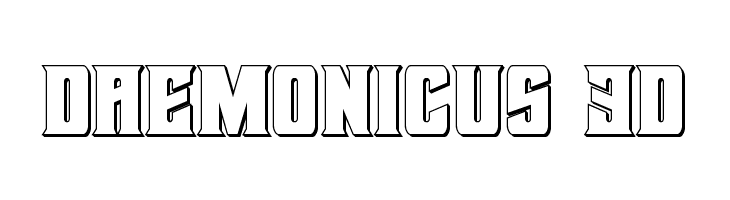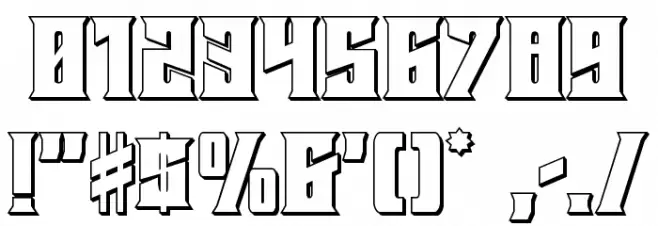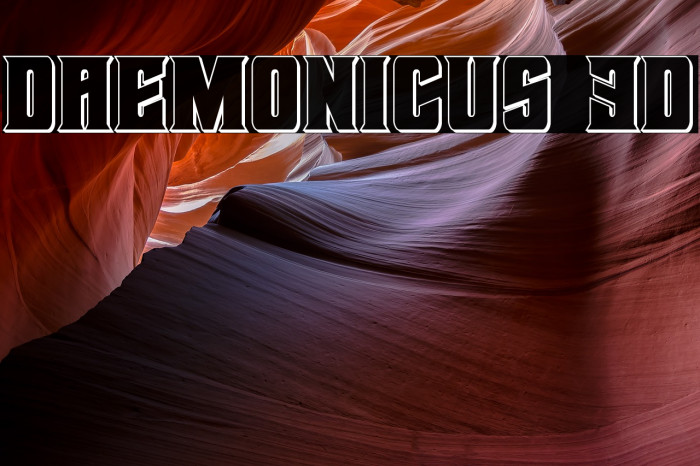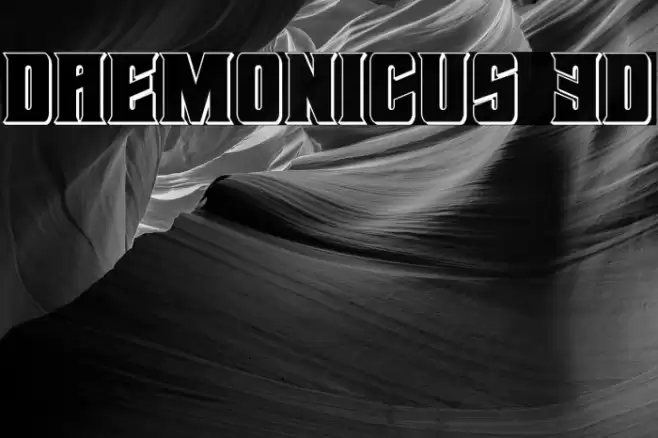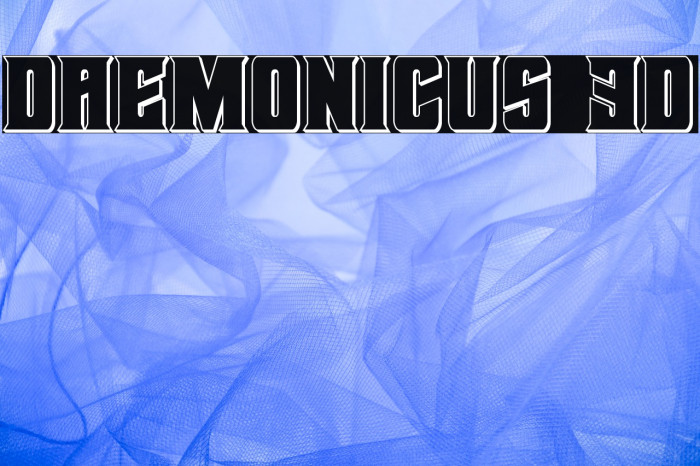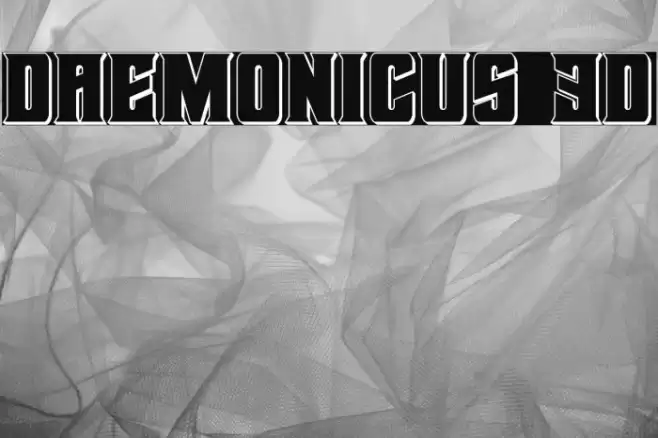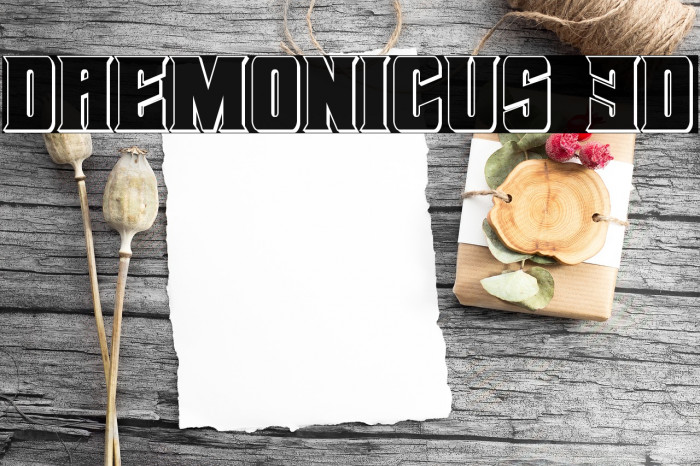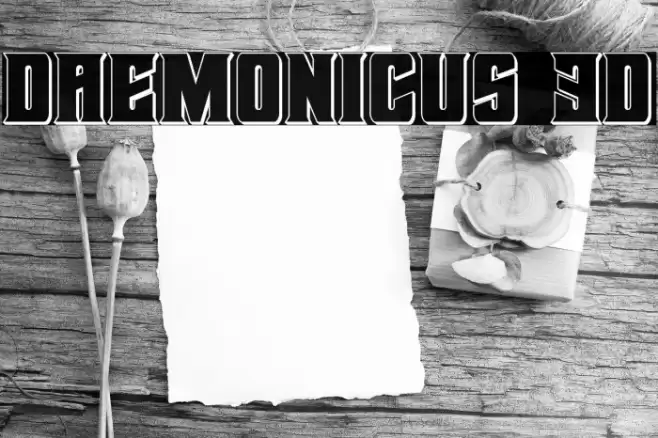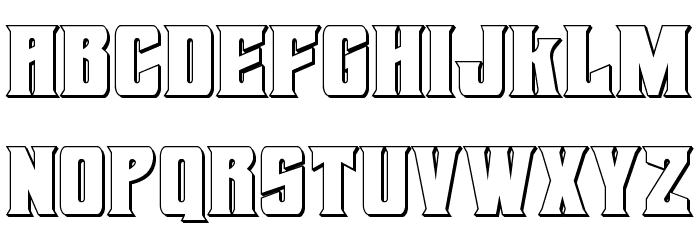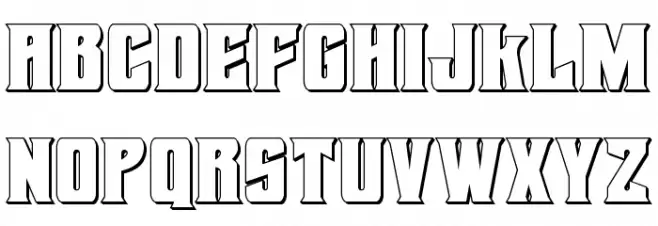
Daemonicus 3D Font
Daemonicus 3D Description
This font features a bold, three-dimensional appearance with a strong, angular design. Each character is outlined with a shadow effect, giving it a distinct, blocky look that stands out. The uppercase and lowercase letters maintain a consistent style, with sharp edges and a uniform thickness throughout. The numbers and special characters follow the same design principles, ensuring a cohesive look across all elements. This font's unique 3D effect and geometric shapes make it ideal for eye-catching designs.
| Proposed Projects | Ideal for posters, video game titles, logos, and any project requiring a striking, modern aesthetic. |